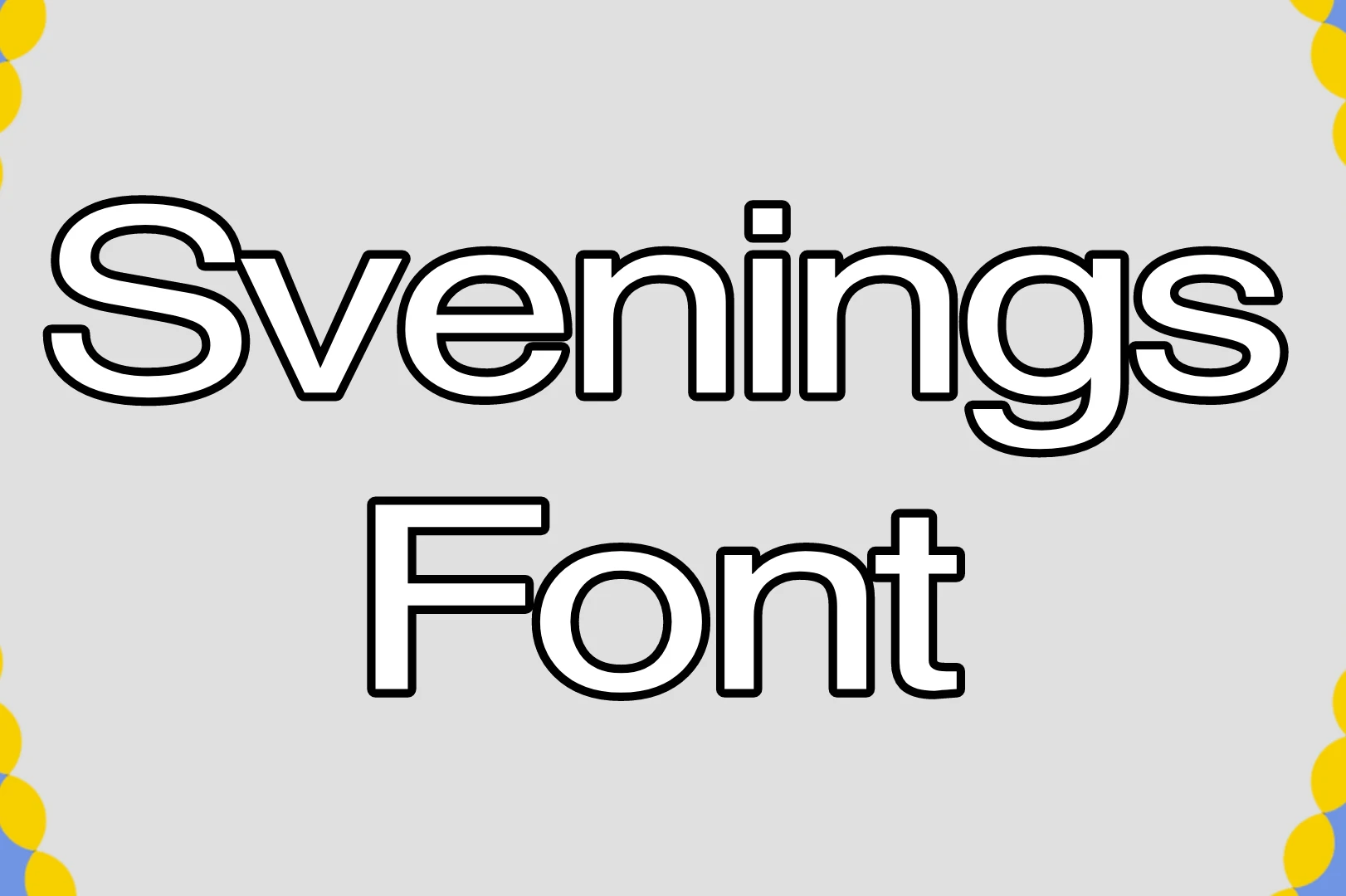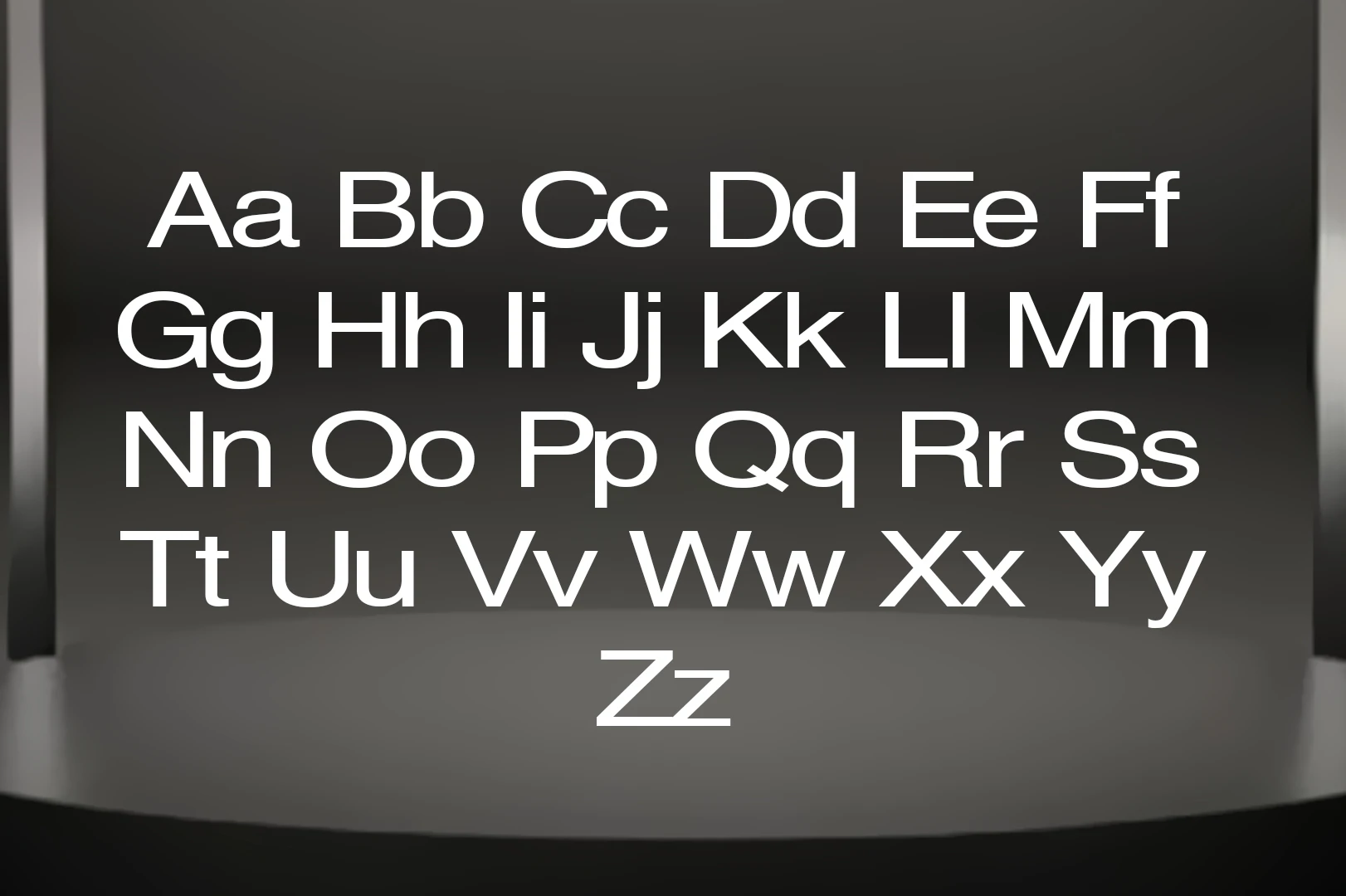
Sveningsson Font
The Sveningsson Font is a popular typeface designed by Derek Gomez. It is a versatile sans-serif font known for its clean and modern design. It belongs to the sans-serif typeface family, characterized by its absence of serifs (small decorative lines or extensions at the ends of letter strokes).
This font has a geometric and minimalist design, featuring simple and elegant letterforms. Its balanced and harmonious appearance makes it suitable for various design applications. You can easily combine this fantastic texture with theĀ Alright Sans Font and build stunning projects.
It is available in several weights and styles, allowing for flexibility in design. Common variations include Sveningsson Regular, Sveningsson Bold, Sveningsson Italic, and Sveningsson Light. The font family also offers condensed and extended versions, providing further typographic options.
Usage of the Sveningsson Font
This font is widely used in both print and digital media. Its legibility and versatility make it suitable for various purposes such as branding, logo design, headlines, body text, signage, user interfaces, and more. It has become popular for designers seeking a contemporary and timeless look.
It had a versatile and distinct style that makes them suitable for various design applications. Here are some unique uses of this font:
1. Digital Interfaces: It is commonly used in digital interfaces, including websites, mobile apps, and software user interfaces. Their clean and legible design helps enhance readability on screens and ensures clear communication of information.
2. Modern and Minimalist Design: This font is often associated with modern and minimalist design aesthetics. Their simplicity and lack of decorative elements make them ideal for conveying a sleek and contemporary look in branding, logos, packaging, and editorial design.
3. Headlines and Titles: It is frequently used for headlines and titles, where they can make a bold and impactful statement. Their clean lines and uniformity allow for strong visual hierarchy and legibility, even at larger sizes.
These are just a few examples of the unique uses of this font. The versatility and adaptability of sans serif typefaces make them a popular choice in various design contexts where clarity, legibility, and modern aesthetics are desired.
Preview Image of the Sveningsson Font
Sveningsson Font
Important FAQs of Sveningsson Font!
What type of font is Sveningsson Font?
The Sveningsson Font is a popular typeface designed by Derek Gomez. It is a versatile sans-serif font known for its clean and modern design.
Where can I use the Sveningsson Font?
It is commonly used in digital interfaces, including websites, mobile apps, and software user interfaces. Their clean and legible design helps enhance readability on screens